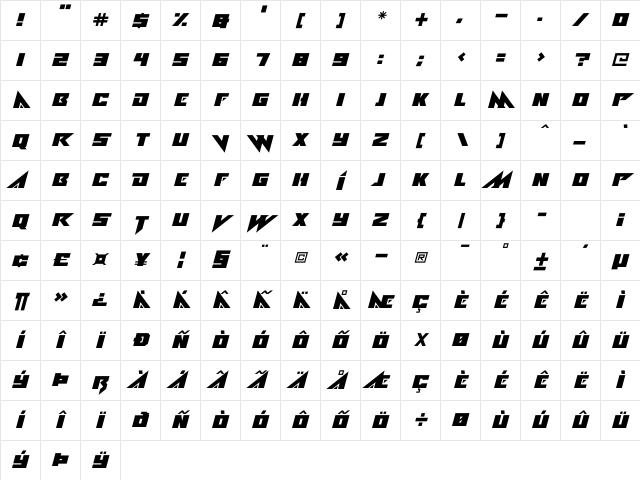
Complete Alien Ravager Italic glyph index. Displaying only characters natively supported by Alien Ravager Italic font.
Alien Ravager is a composed and adaptable typeface that performs quietly and consistently across a wide range of design contexts. The slanted form adds forward momentum and visual energy.